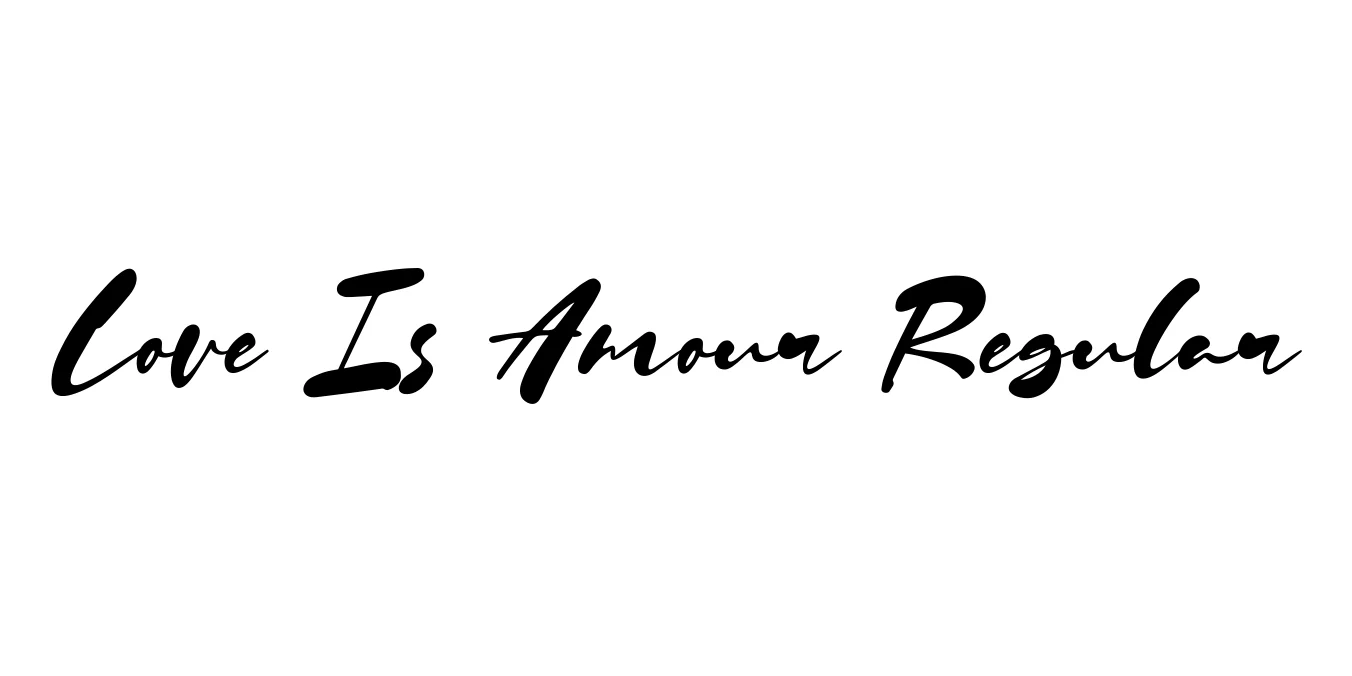
Love Is Amour Regular
Designed by Sronstudio
Love Is Amour Regular is an exquisite script font that beautifully captures the essence of romance and sophistication. Designed with fluid, hand-drawn strokes and elegant ligatures, this typeface offers a natural flow that mimics traditional calligraphy. The delicate balance between its thin connectors and slightly bolder stems makes it a standout choice for designers looking to convey a sense of intimacy and grace in their visual storytelling.
Widely recognized for its romantic aesthetic, Love Is Amour Regular is highly effective in high-end design environments. Whether it is used for high-fashion branding or sentimental wedding stationery, the font maintains a high level of legibility while providing a distinct, handcrafted personality. It serves as a versatile tool for creating emotive typography that resonates with audiences on a personal level.
Love Is Amour Regular Best Uses
Perfect for invitations, RSVP cards, and seating charts.
Creates sophisticated logos for fashion, beauty, and jewelry brands.
Ideal for inspirational quotes and elegant Instagram layouts.
Adds a premium, personalized touch to cosmetic or artisanal product boxes.